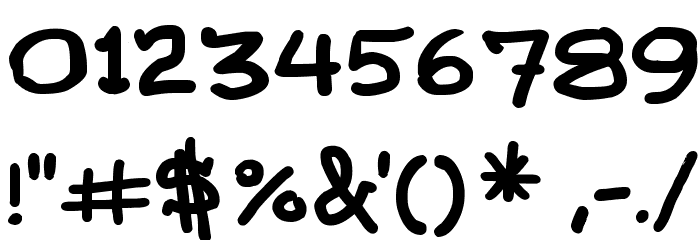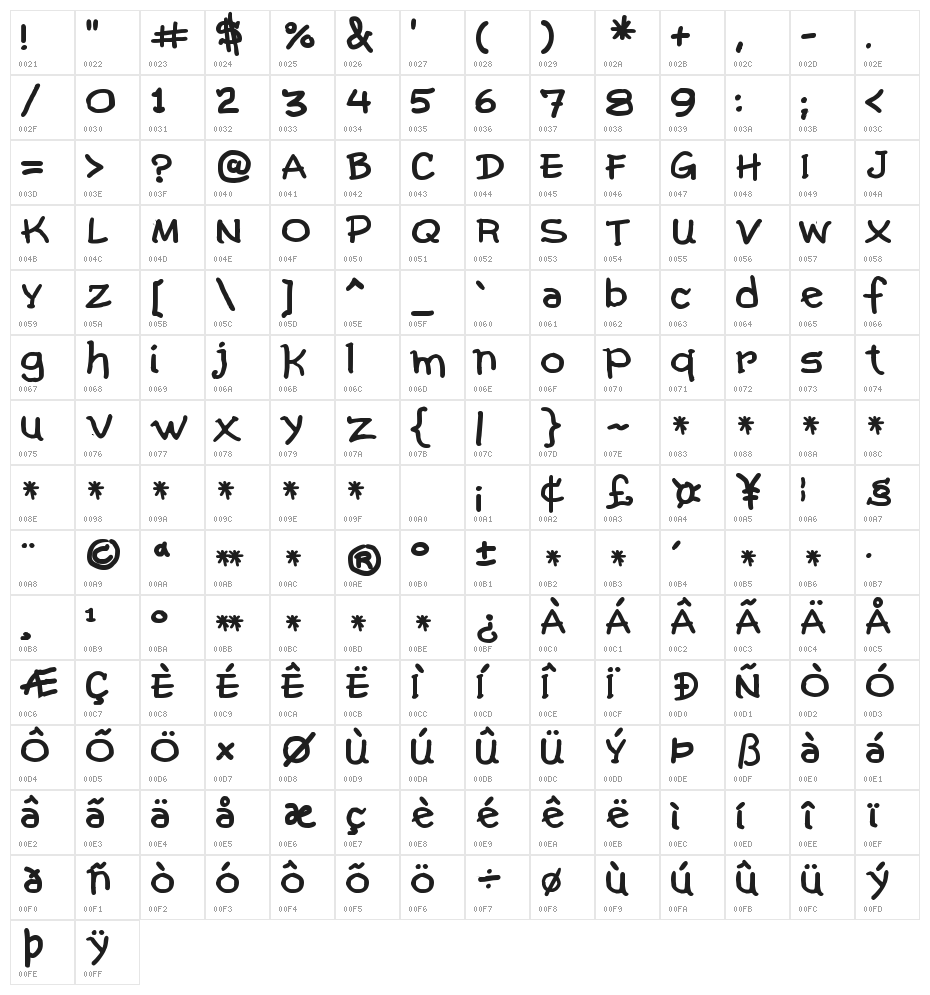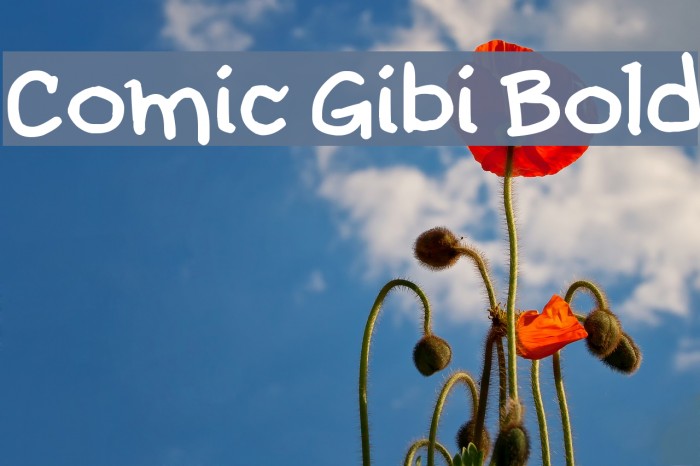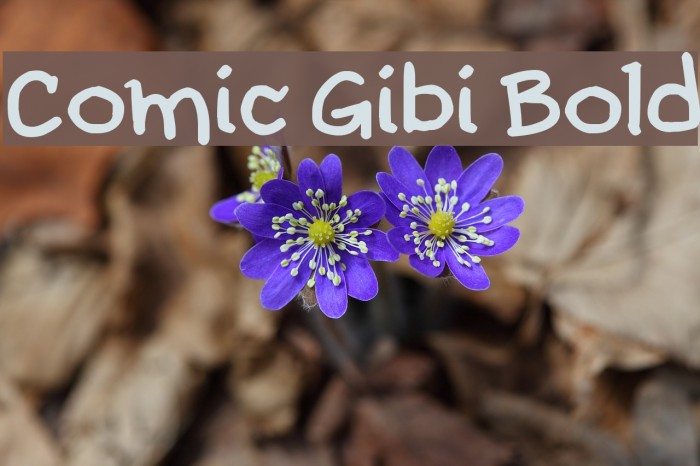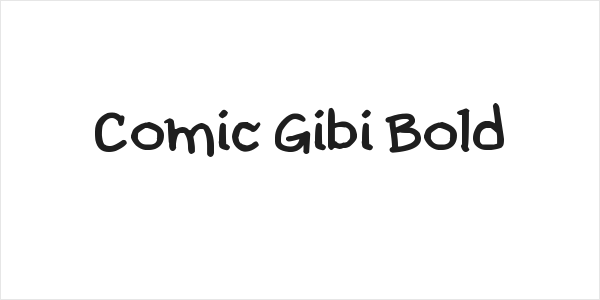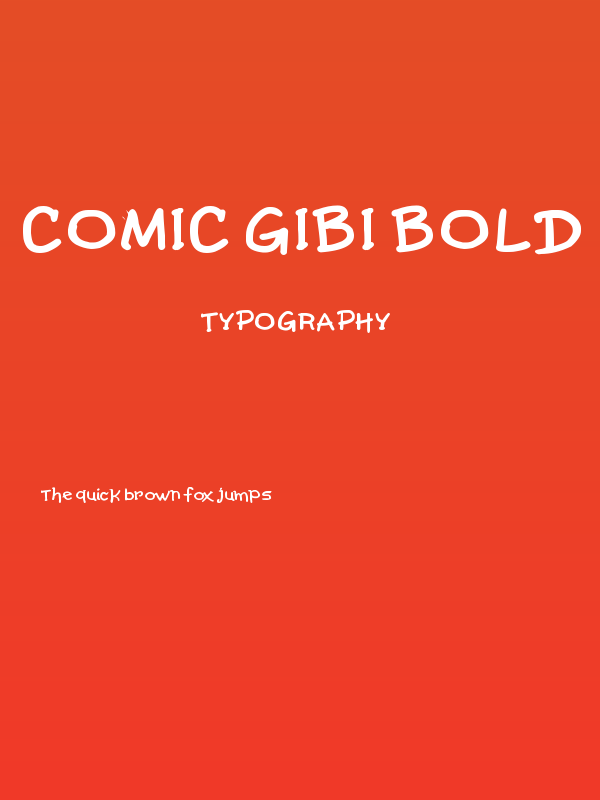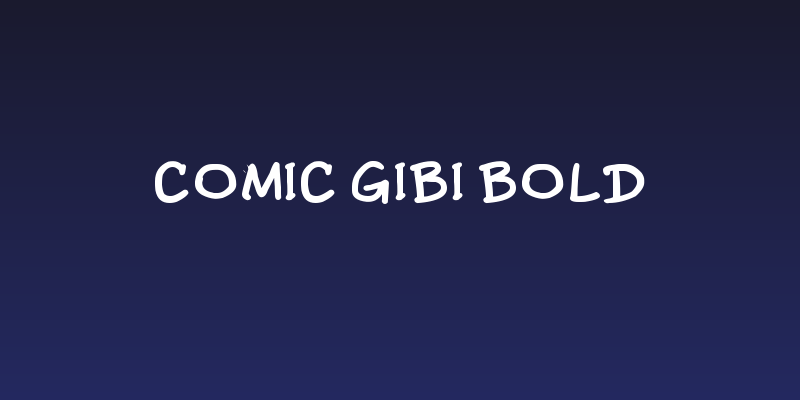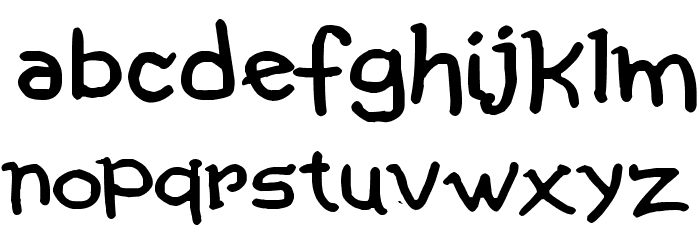
Comic Gibi Bold Font
Comic Gibi Bold Description
This playful and bold font features a handwritten style with a casual, comic-like appearance. The letters are rounded and slightly irregular, giving it a friendly and approachable feel. The uppercase and lowercase letters maintain a consistent style, with a slight tilt that adds to its informal charm. The numbers and special characters are equally whimsical, making it suitable for creative and fun projects. The font's boldness ensures readability while maintaining its unique character.
| Proposed Projects | Ideal for comic books, children's books, playful branding, and informal invitations. |